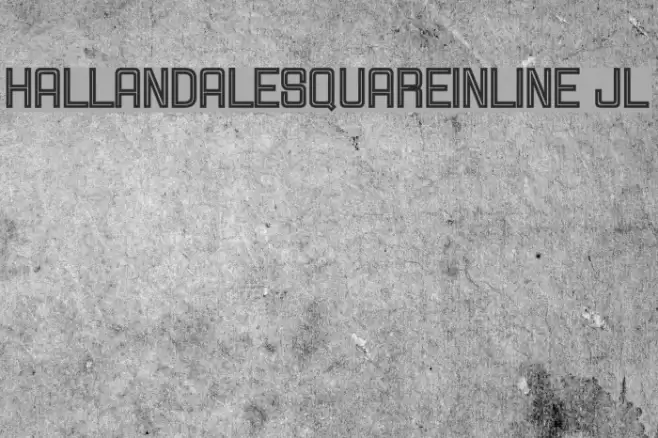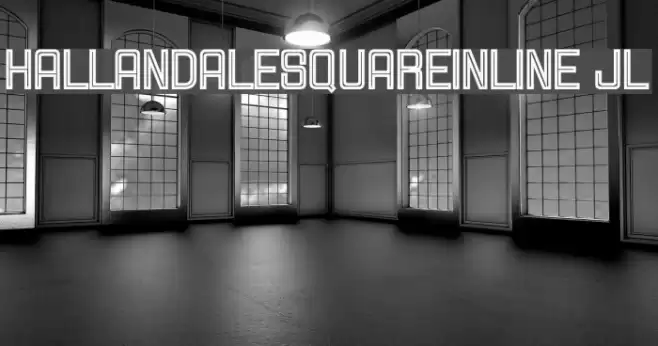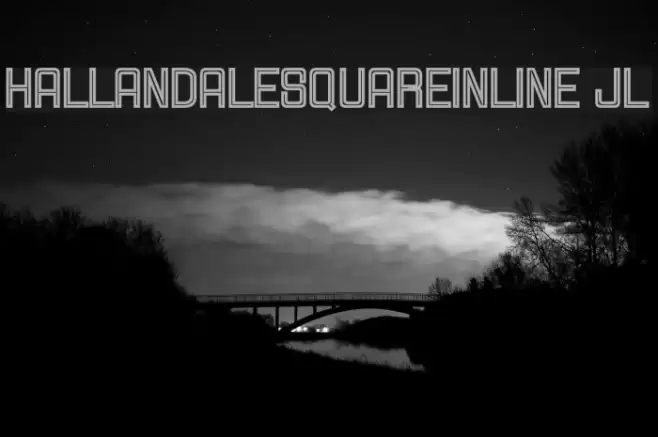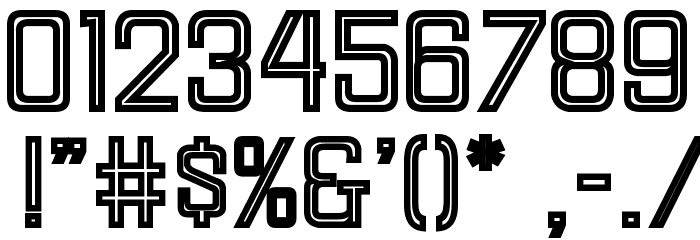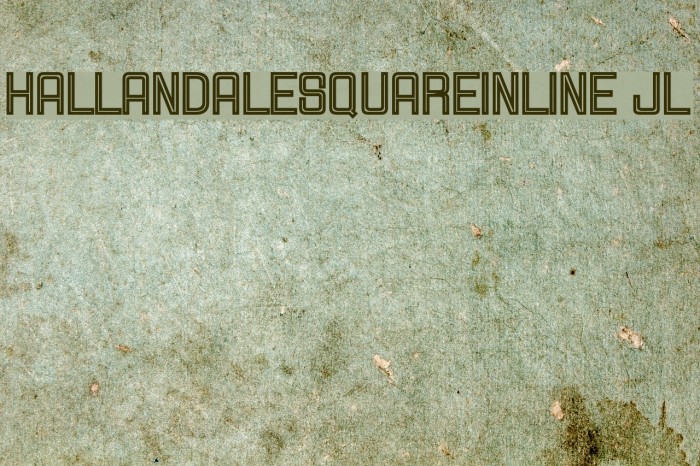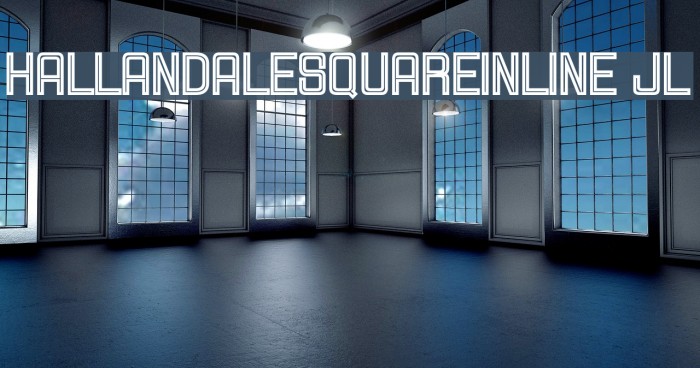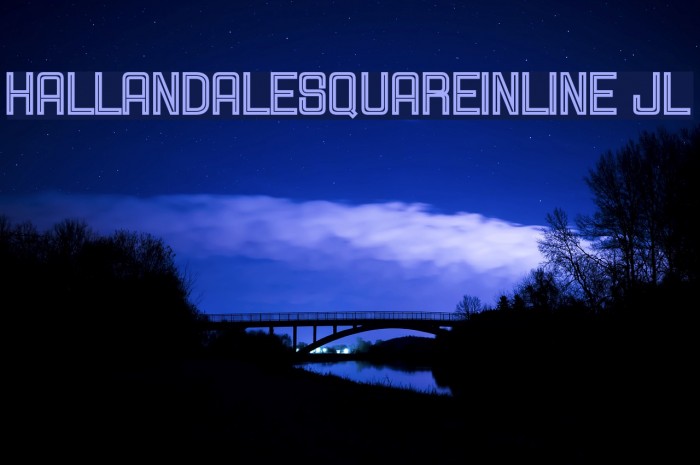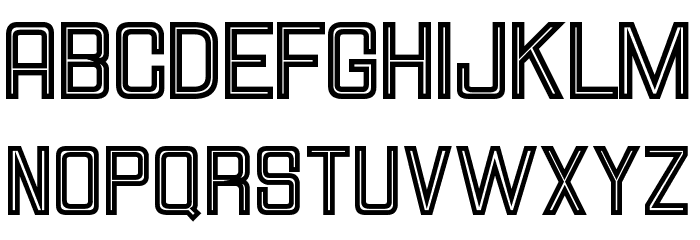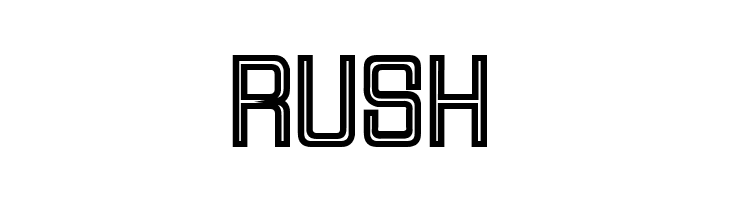
HallandaleSquareInline JL Font
HallandaleSquareInline JL Description
This font features a bold, geometric design with a distinct inline style that creates a three-dimensional effect. The characters are uppercase and lowercase letters, numerals, and a variety of special symbols. Each letter is constructed with clean, straight lines and sharp angles, giving it a modern and industrial feel. The inline detail adds depth and interest, making it suitable for eye-catching designs. The uniformity in stroke width and spacing ensures readability while maintaining a unique aesthetic appeal.
A bold, geometric font with a three-dimensional inline style.
- Proposed Projects: Ideal for branding, posters, signage, and any project requiring a modern, industrial look.